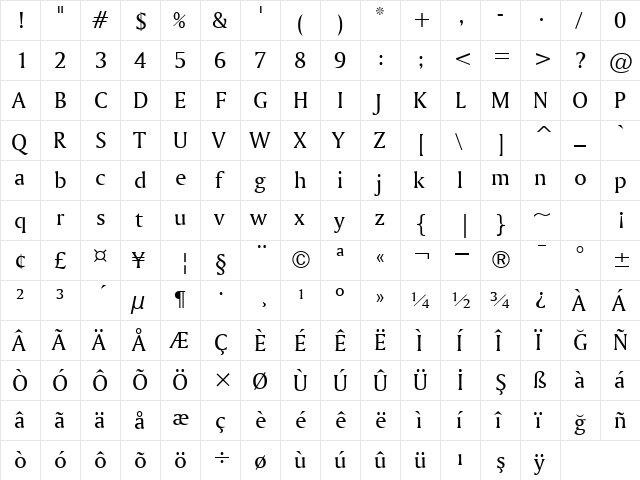
00820 Regular
Design Context for 00820 Typeface
00820 takes a measured approach to typography — its balanced proportions and neutral character make it a reliable workhorse for both digital and print work.